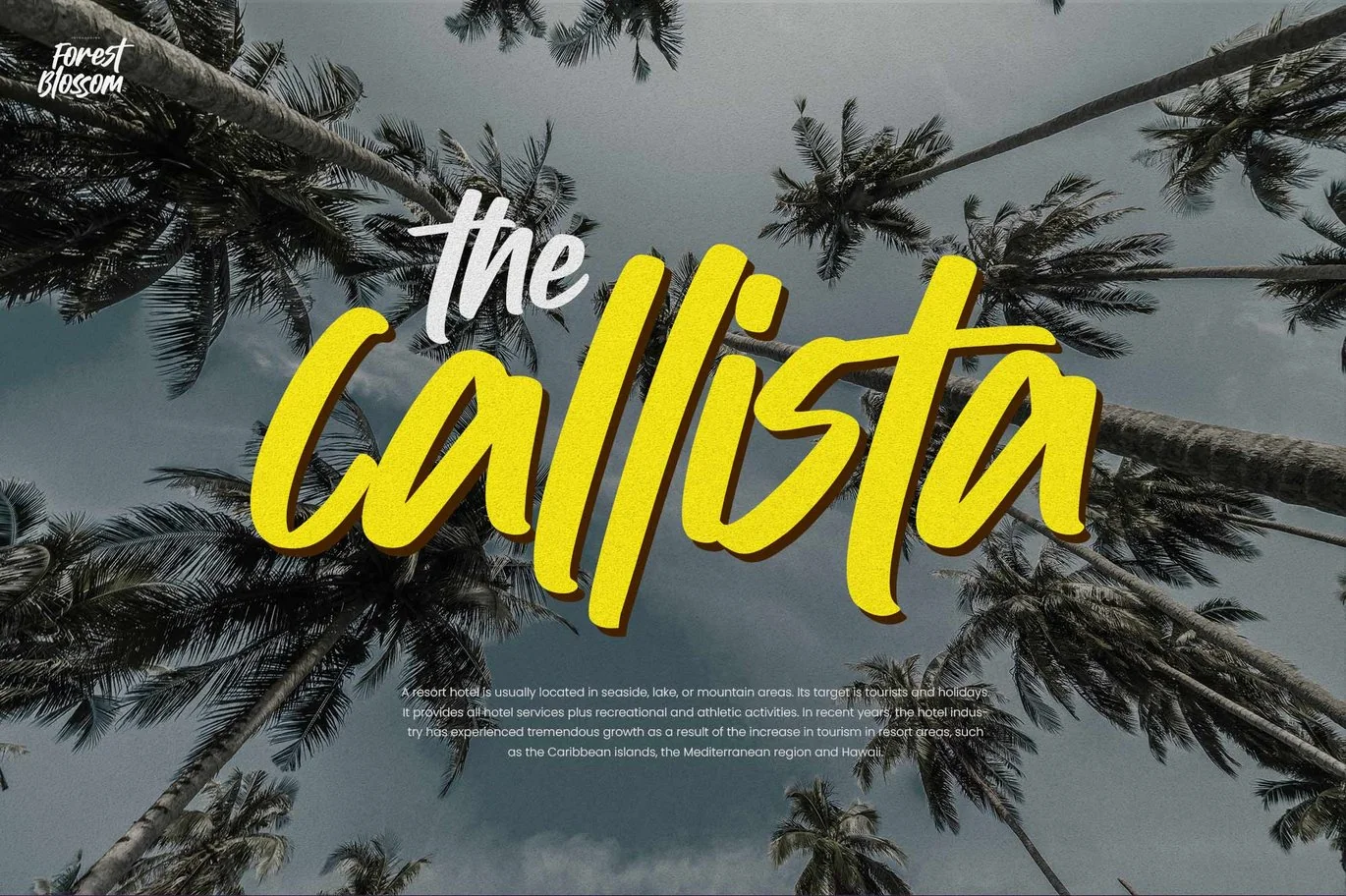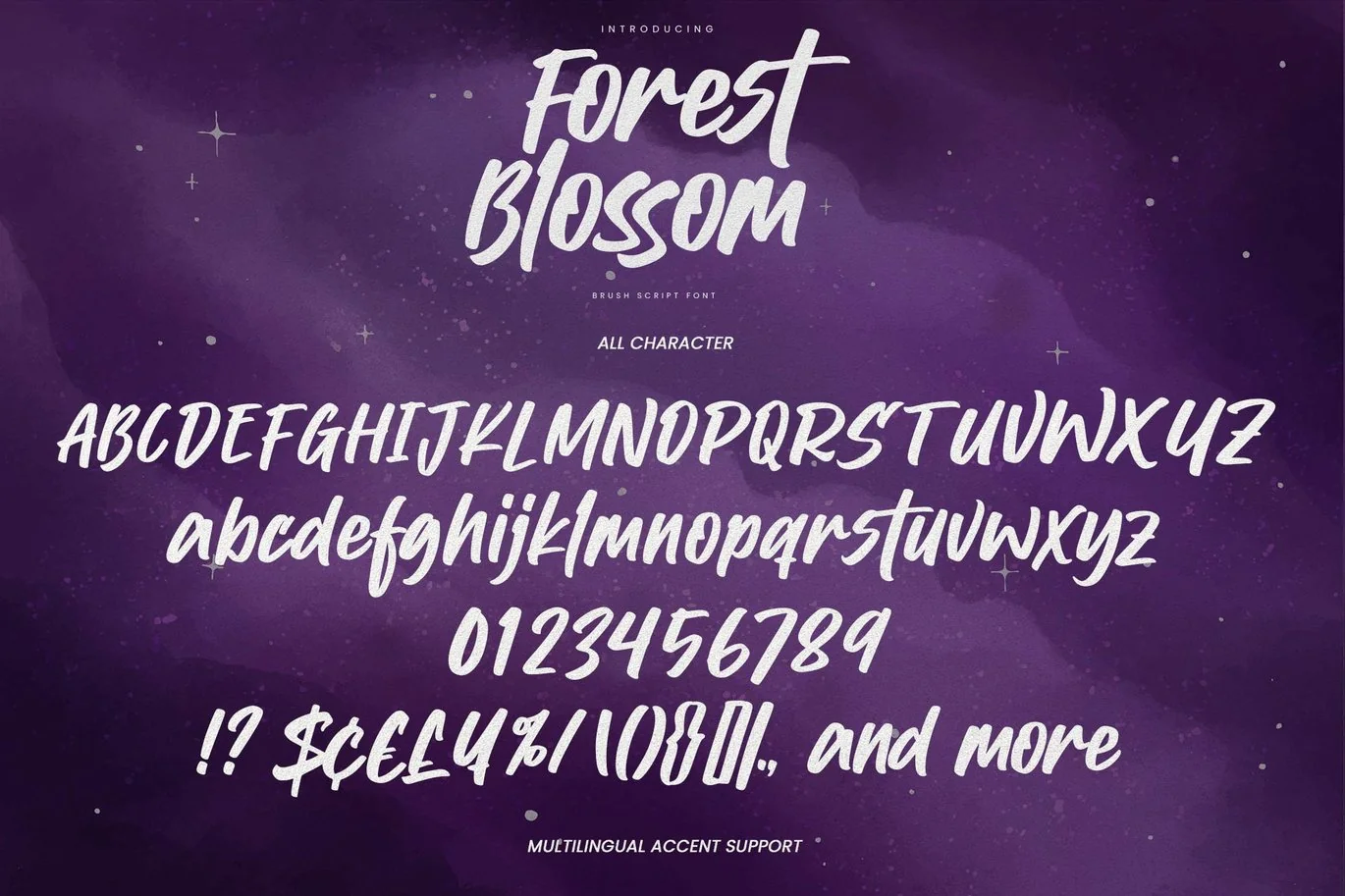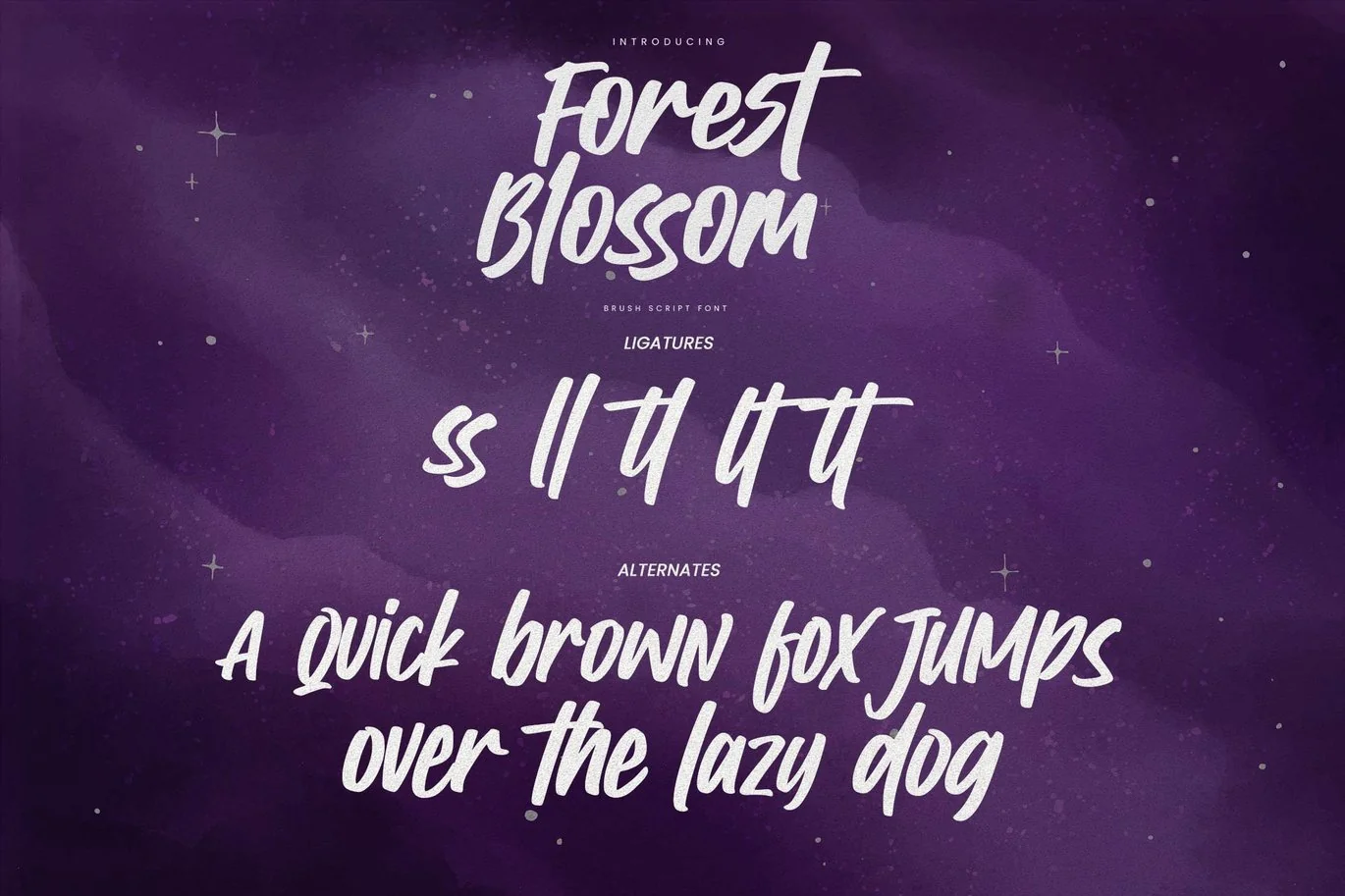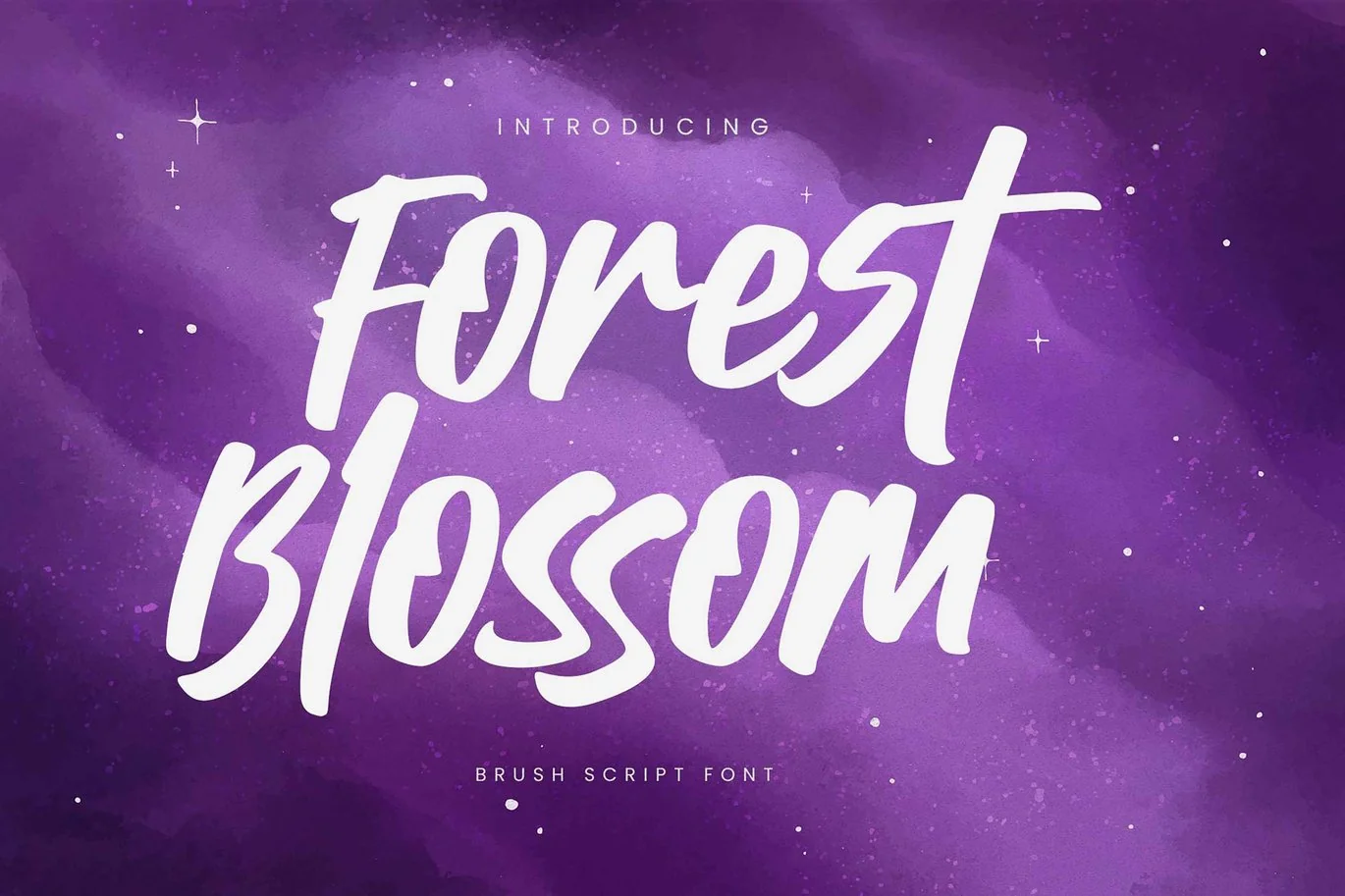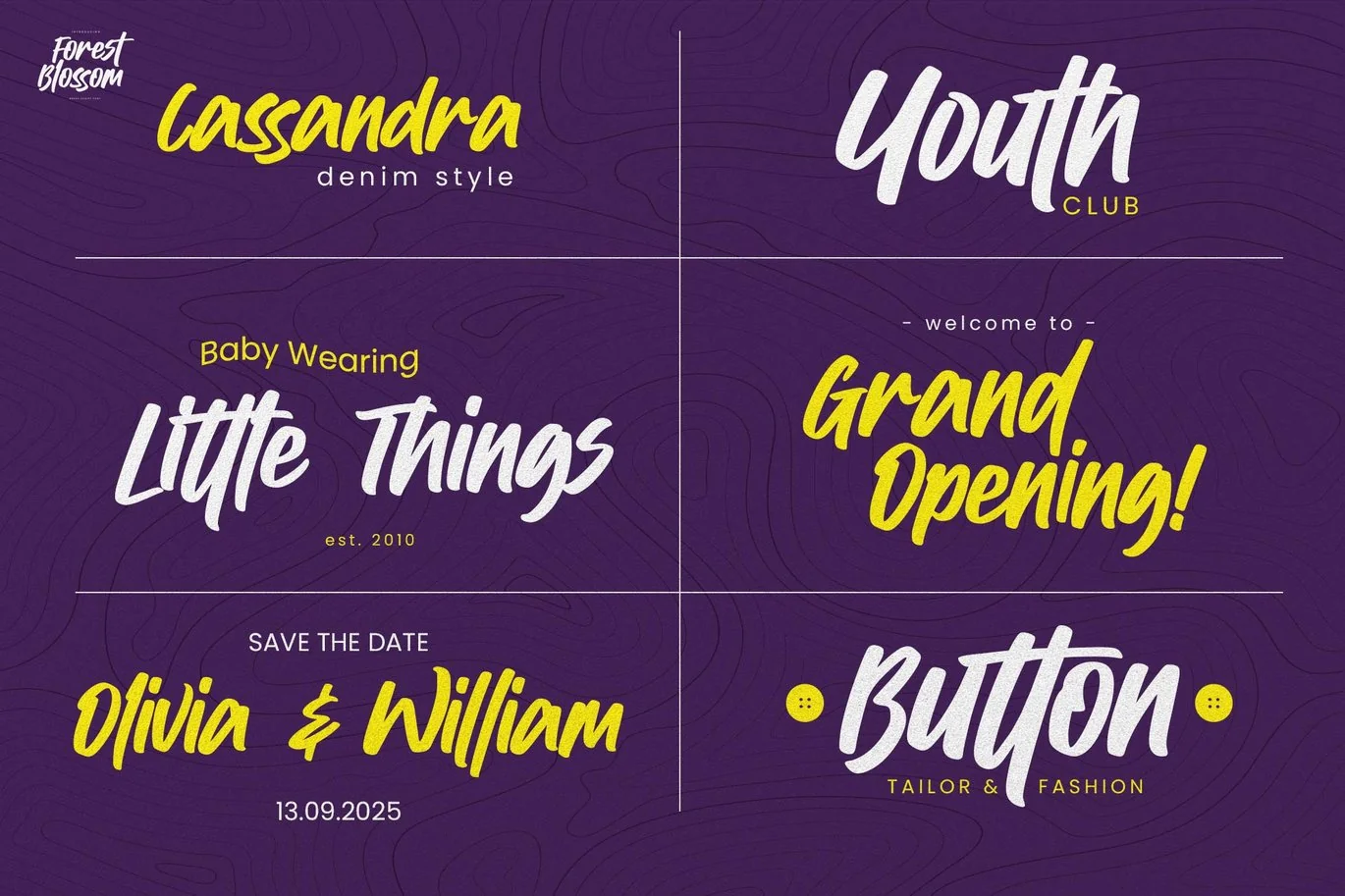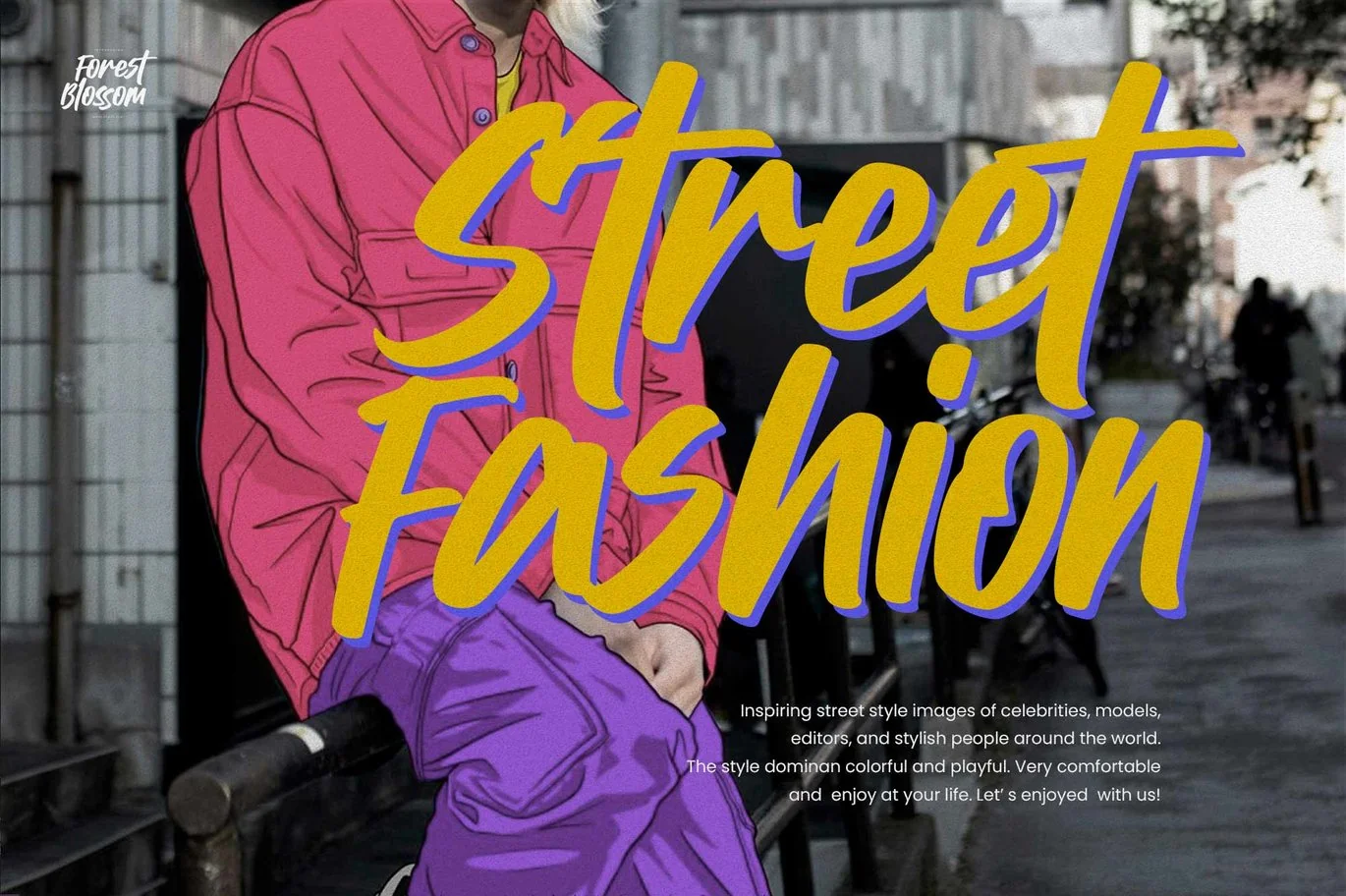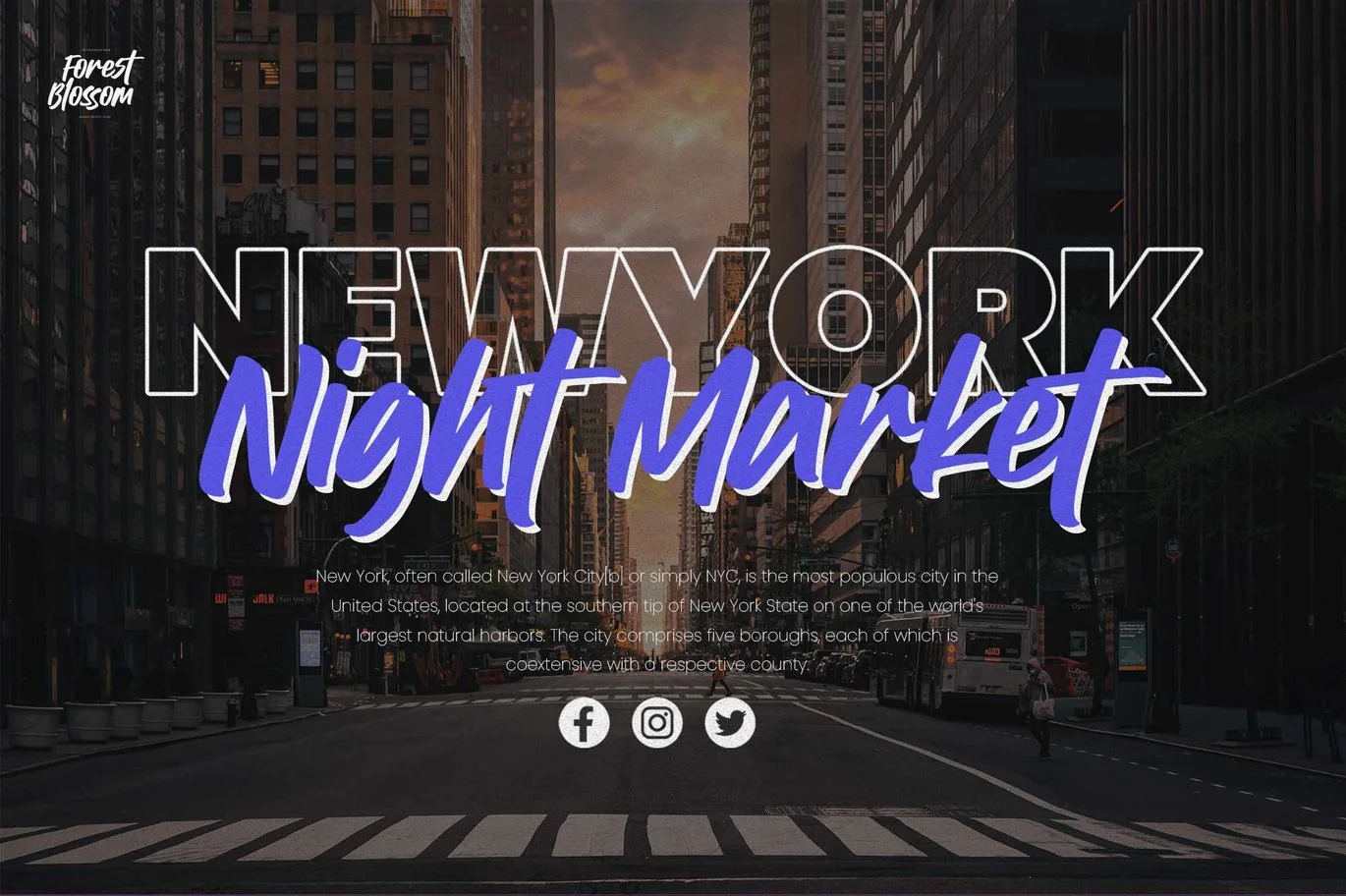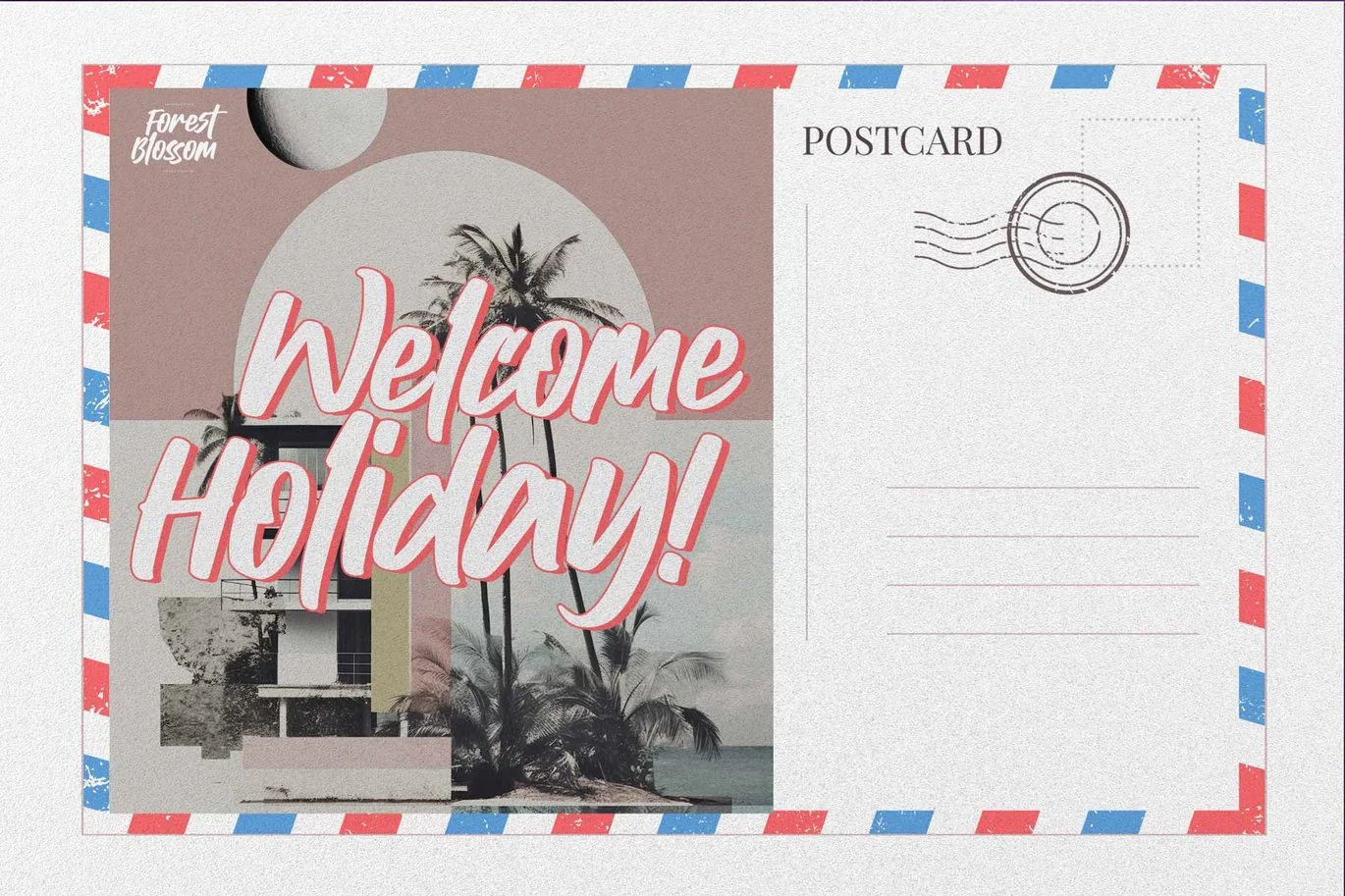
Forest Blossom – Brush Script Font
Hello Everyone, introduce our new product Font Forest Blossom This Is Brush Script Font.This is a handwritten font style and classy style.
This font Forest Blossom  is great for your next creative project such as logos, printed quotes, invitations, cards, product packaging, headers, Logotype, Letterhead, Poster, Design this font is great for your creative projects such as watermark on photography, and perfect for logos & branding, invitation,advertisements,product designs, stationery, wedding designs,label ,product packaging, special events or anything that need handwritting taste.
That is has charming, authentic and relaxed characteristic more natural look to your text.
Fonts include multilingual support